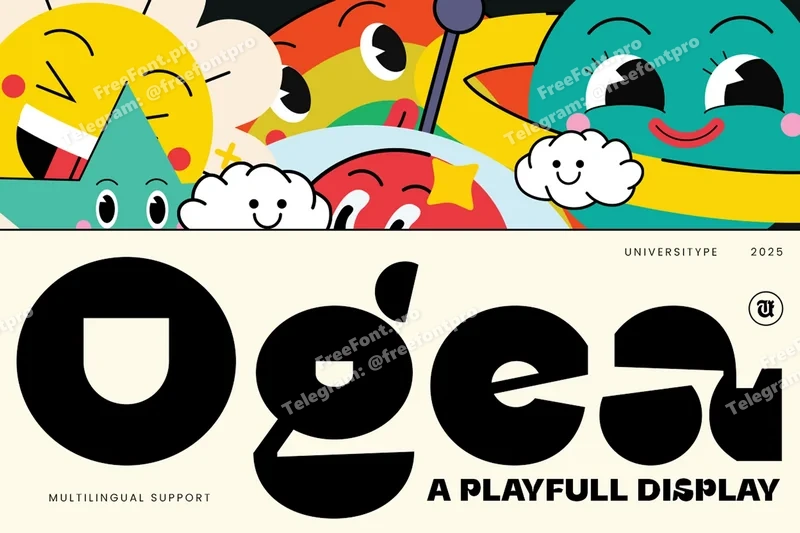
Ogea Display – A Playful Display Font
Ogea Display is a bold, quirky, and joy-filled display font designed to spark creativity and bring fun into your projects. With its chunky letterforms, playful curves, and unexpected cuts, Ogea Display doesn’t just communicate words—it communicates energy. Perfect for projects that need a dose of personality, Ogea Display turns ordinary text into a statement that feels friendly, modern, and full of life.
Key Features
Bold, playful letterforms with geometric charm
Multilingual support for global projects
Perfect balance of quirkiness and readability
Works beautifully in both print and digital formats
Includes ligatures and alternates for added variety
Inspiration Behind the Design
Ogea Display was inspired by childhood joy, vibrant shapes, and the feeling of doodling without rules. Think colorful building blocks, retro cartoons, and the charm of handmade signs, it’s all about capturing that nostalgic, fun-loving vibe while keeping it fresh and modern.
Usage Suggestions
Branding for playful businesses (cafés, toy shops, creative studios)
Social media graphics and content
Event promotions and festival identities
Features: Multilingual support, ligatures, stylistic alternates, standard punctuation